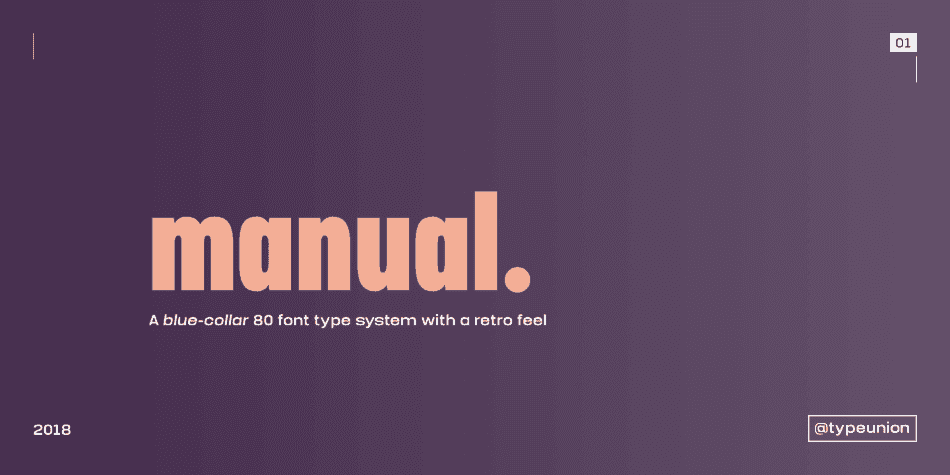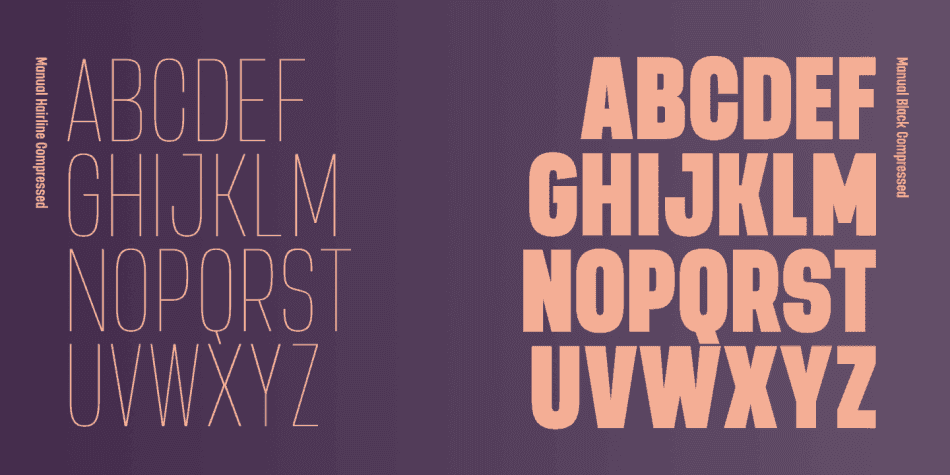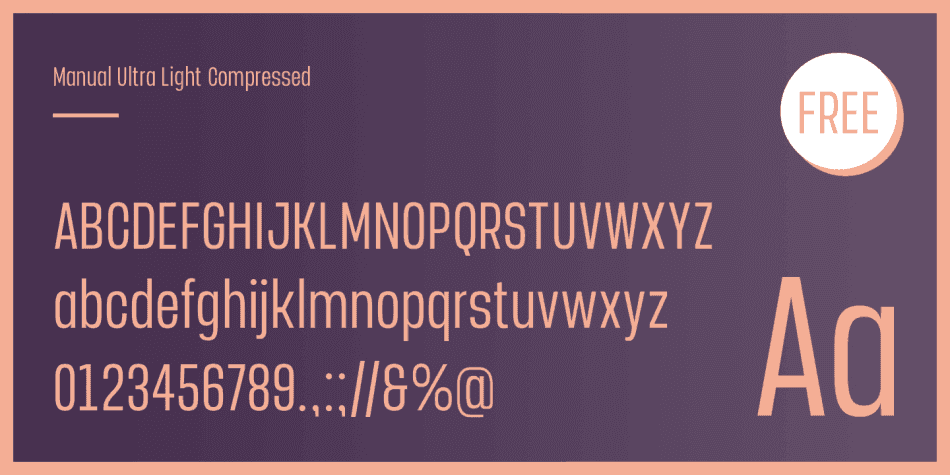
Manual is an 80 font superfamily consisting of 10 weights with 4 widths. The style of Manual features an almost retro vibe to create an eye-catching appearance. Manual is a blue collar font designed to assist your design concepts successfully.